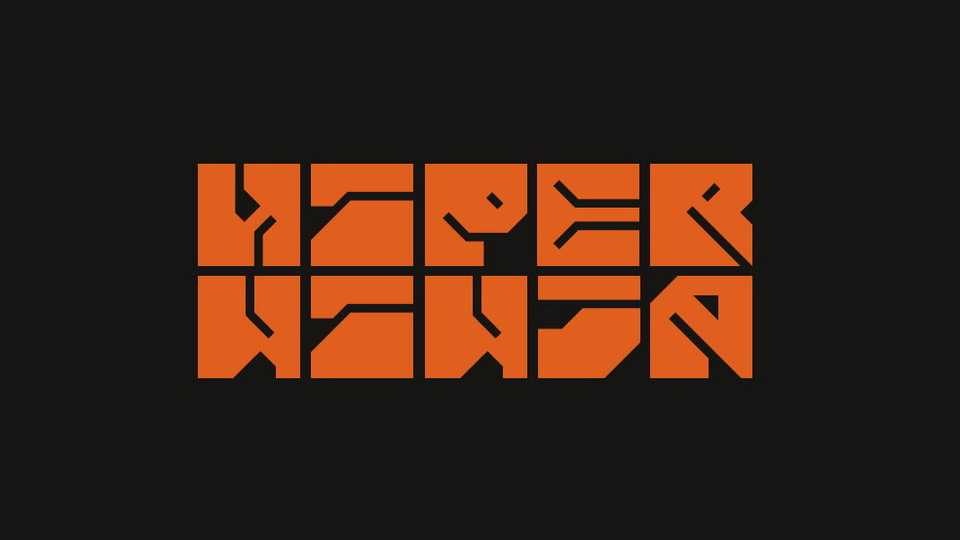
Download Hiper Ninja font, is a bold display typeface designed for applying cool futuristic inscriptions on various surfaces. Hiper Ninja font is designed for simple words or headings.
Designer: Tim Kasimoff